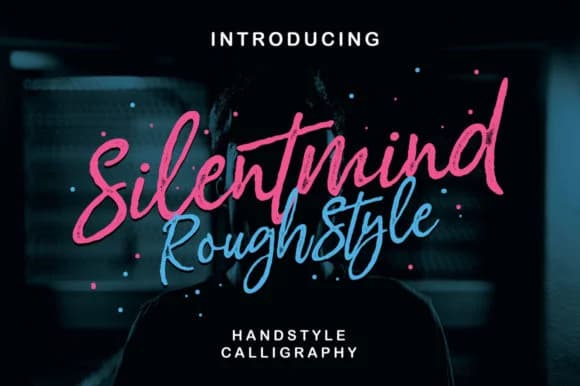
Silentmind Font by riversidetypefoundry is a contemporary calligraphy script that brings flowing elegance and refined artistry to digital and print design work. The typeface features an extensive collection of stylistic alternates and letter variations, enabling designers to craft distinctive compositions with dynamic flourishes and swash options that feel uniquely personalized. This modern approach to script typography bridges the gap between handwritten warmth and professional polish.
Whether you're creating wedding invitation suites with custom letter combinations, designing luxury beauty brand packaging with refined sophistication, developing premium social media graphics for high-end boutiques, or crafting elegant event programs and menus, Silentmind adapts beautifully across applications. The alternates provide remarkable flexibility to avoid repetitive letterforms, giving your work that coveted handcrafted quality that resonates with upscale design projects. Each variation feels intentional rather than randomly generated, maintaining consistency while allowing creative expression throughout your typography.
The fluidity and contemporary sensibility of this script make it an excellent choice for brands seeking a polished yet organic aesthetic that stands apart from generic options. From custom logo development and label design to sophisticated blog headers and branding applications, Silentmind delivers the refined quality that luxury projects demand. Get Silentmind Font on Creative Fabrica and transform your design work with sophisticated script typography.
Silentmind Font is a script font that shines as a display or heading face. Pair it with a clean sans-serif or serif font for body text β the contrast creates a clear hierarchy while the two styles stay balanced and easy to read.